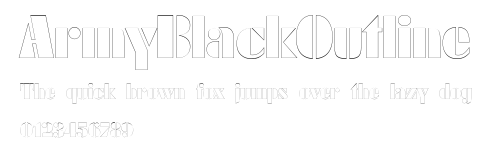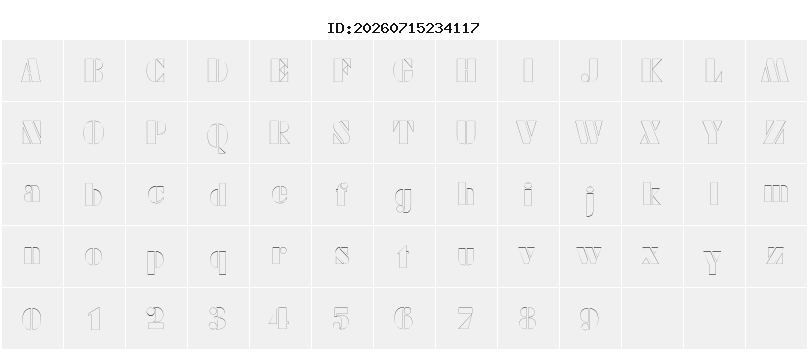
ArmyBlackOutline Preview
• Font Name: ArmyBlackOutline
• Font Style: Plain
• Font ID: SWFTE:ArmyBlackOutline Plain
• Full Font Name: ArmyBlackOutlinePlain
• Version: Rev. 003.000
• PostScript Name: ArmyBlackOutlinePlainSWFTE
• Character Count: 213
About ArmyBlackOutline.ttf
ArmyBlackOutline.ttf is a modern, elegant sans-serif font designed for ultimate readability and visual harmony. Perfect for branding, headlines, web design, and print materials.